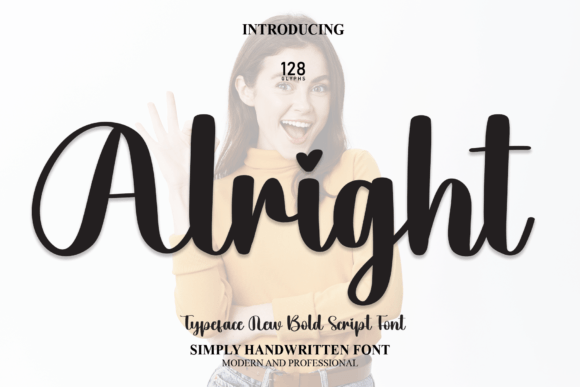
Journey into a world of unbridled creativity with Alright Font, a script font crafted with meticulous attention to detail to fulfill the dreams of every product designer. Each character dances across the screen, carrying a tale of elegance and charm, whispering promises of captivating designs that speak volumes.
With Alright Font, transform your product designs into masterpieces that resonate with your audience. Enchanting, playful, and brimming with personality, this font is the perfect companion for unleashing your imagination and leaving an unforgettable mark on the world.
Embrace the allure of Alright Font, a handwritten script font that adds a touch of whimsy and delight to your creative endeavors. Its flowing lines and graceful curves bring a sense of joy and enchantment to logos, branding, packaging, and social media designs.
Indulge in the versatility of Alright Font, a font that effortlessly adapts to a multitude of design styles. Whether you're crafting elegant wedding invitations, playful children's books, or eye-catching product labels, this font will rise to the occasion, adding a touch of magic to each project.
Alright Font is more than just a font; it's an invitation to embark on a creative odyssey, a journey where your imagination takes center stage. Its charming imperfections and heartfelt aesthetic will captivate your audience, leaving them spellbound by the beauty of your designs.
Unlock the boundless potential of Alright Font today and embark on a design adventure like no other. Let your creativity soar, let your imagination run wild, and let your designs bloom with enchanting allure. The world of design awaits your artistry.